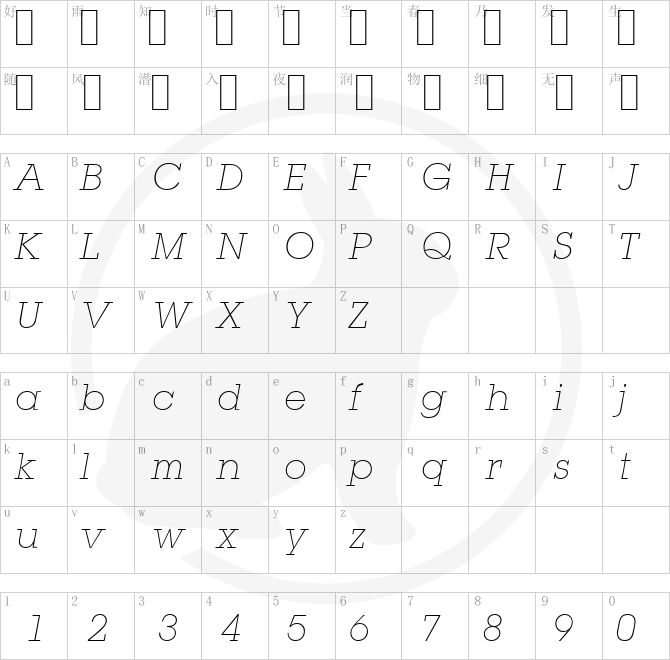
- Font Name:L850-Slab-Light
- Subfamily:SoftMaker Software GmbH L850-Slab-Light-Italic
- Full Name:L850-Slab-Light-Italic
L850-Slab-Light-Italic.ttf is a very beautiful artistic font, L850-Slab-Light-Italic.ttf is widely used in the design and printing of various books and pictures,L850-Slab-Light-Italic.ttf has a strong visual impact,L850-Slab-Light-Italic.ttf is a commonly used font in newspapers, magazines and books, and is used in posters, e-commerce Poster design, store design, logo design, font design and other fields.L850-Slab-Light-Italic.